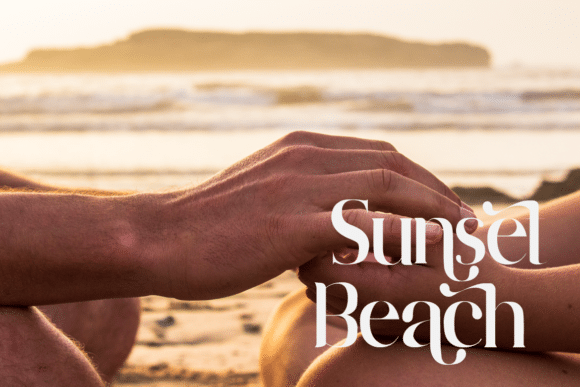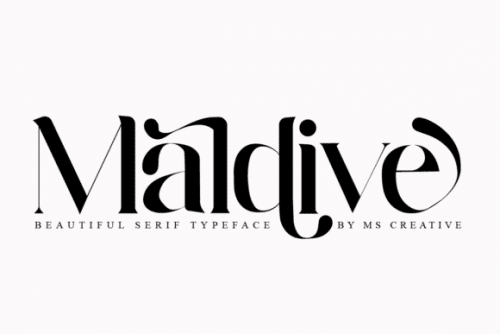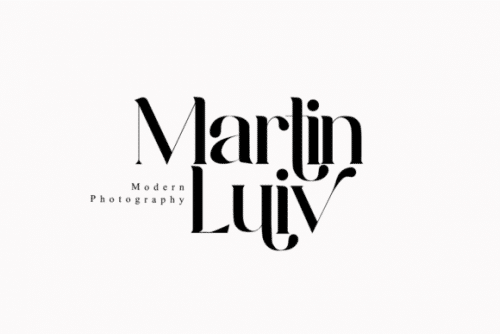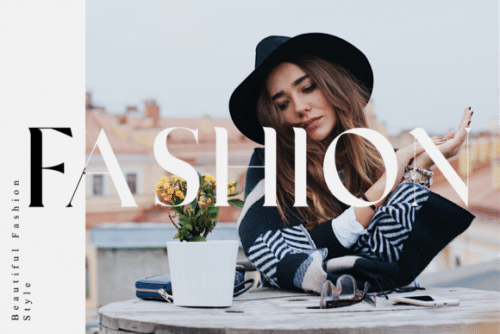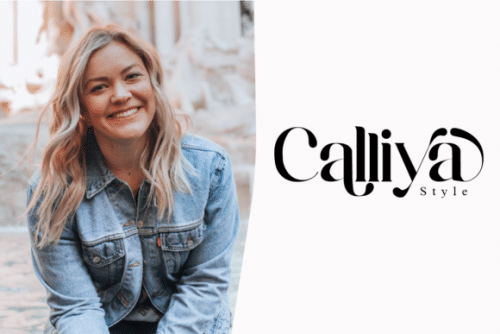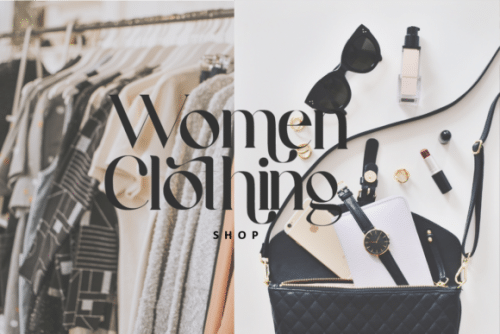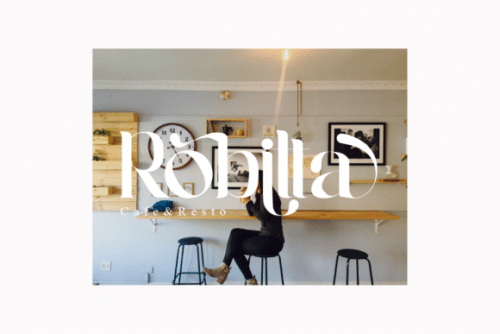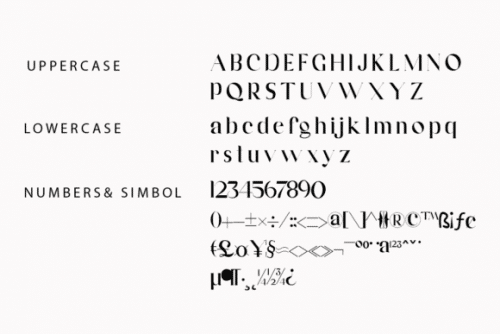
Maldive is a fancy and modern serif font. It will elevate a wide variety of projects, from logos and stationery to magazine covers and social media posts. This typeface will take your designs to the next level!